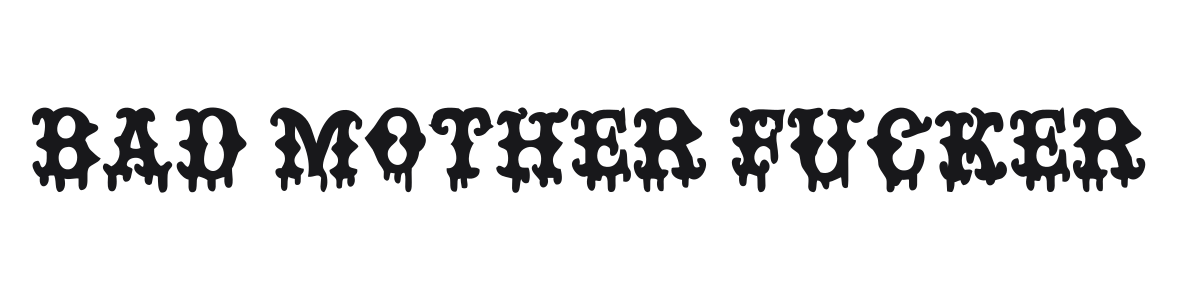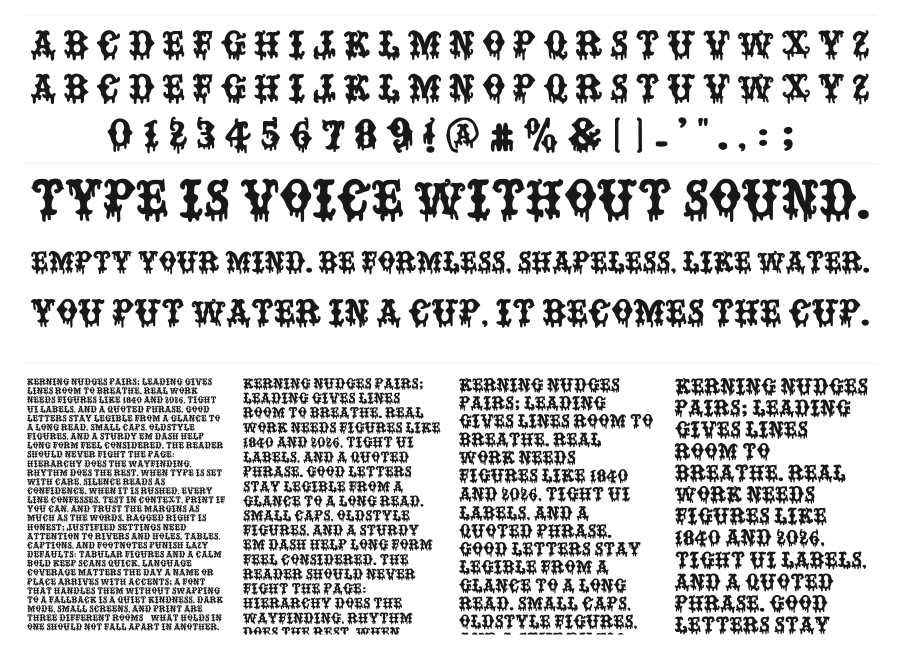
Bad Mother Fucker
Bad Mother Fucker is a dripping, horror-styled display face from Woodcutter with bold gothic letterforms that look like they're melting or bleeding down the page. The heavy strokes and gooey, viscous drips make it an obvious pick for Halloween graphics, horror posters, and anything that needs to feel dark and menacing. It doesn't do subtlety, and that's the point.